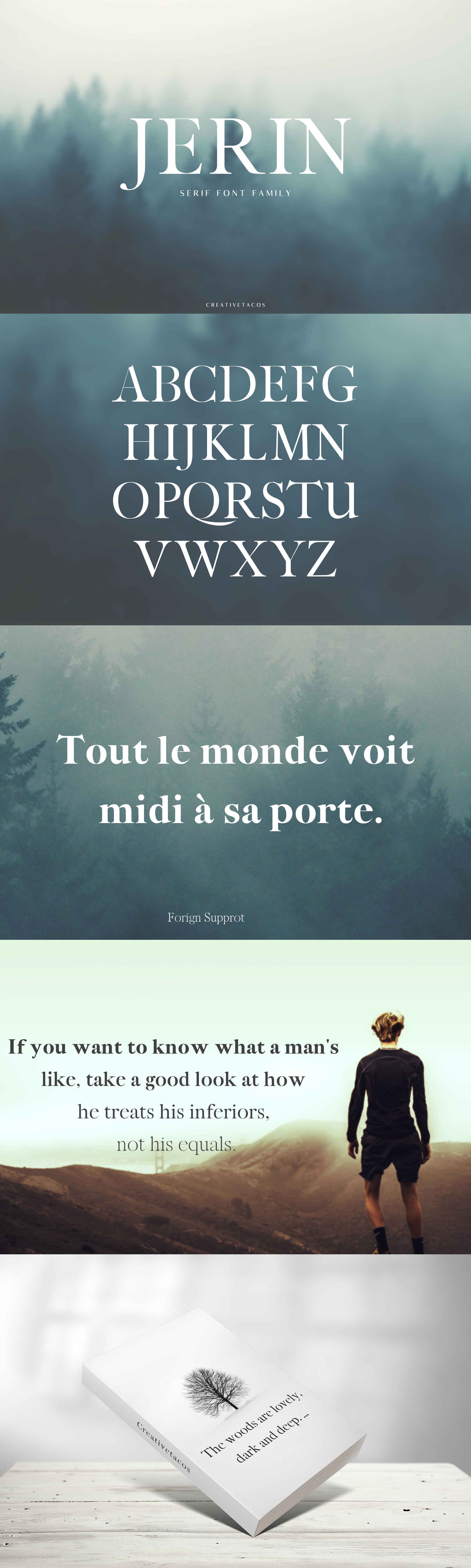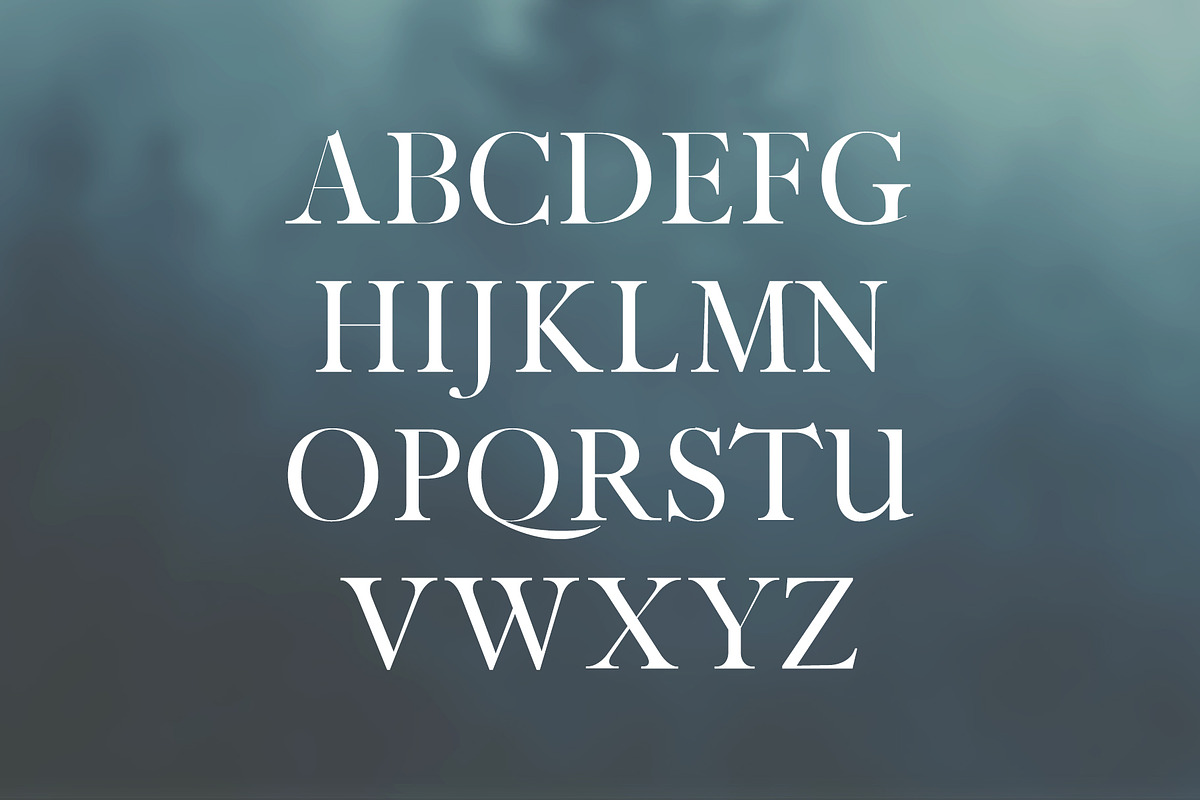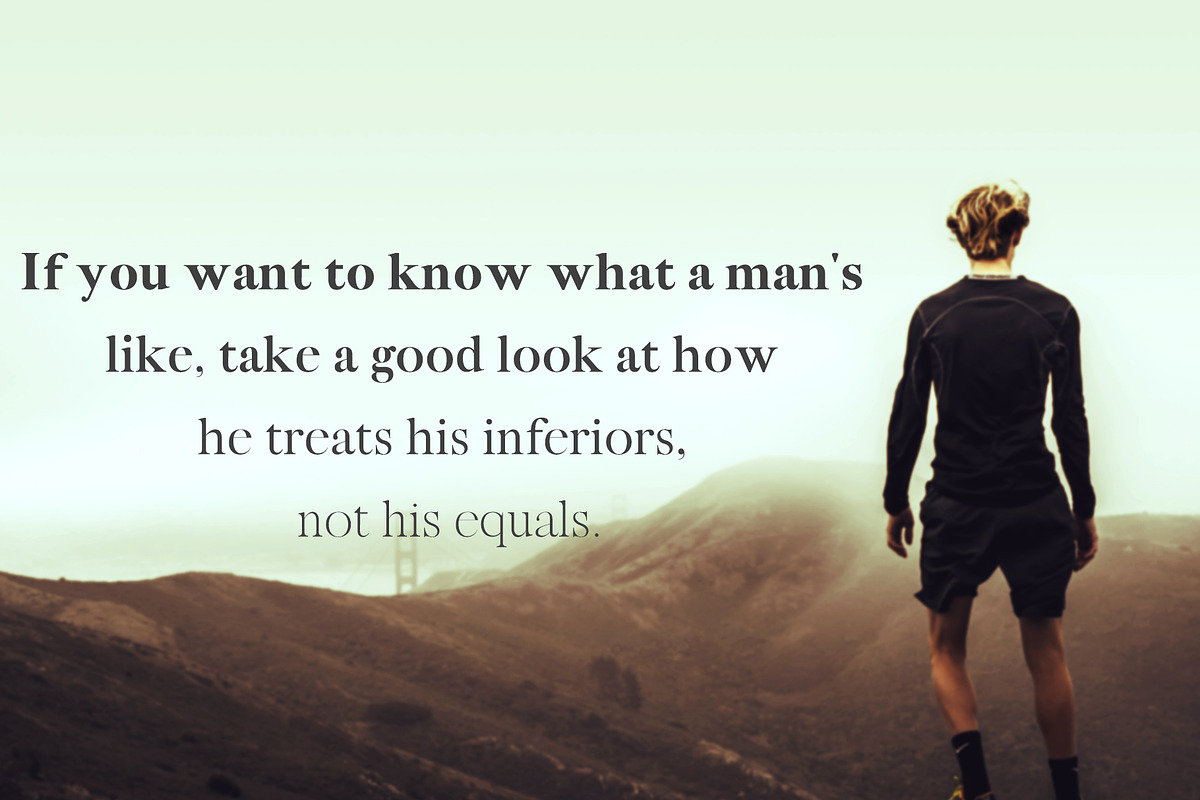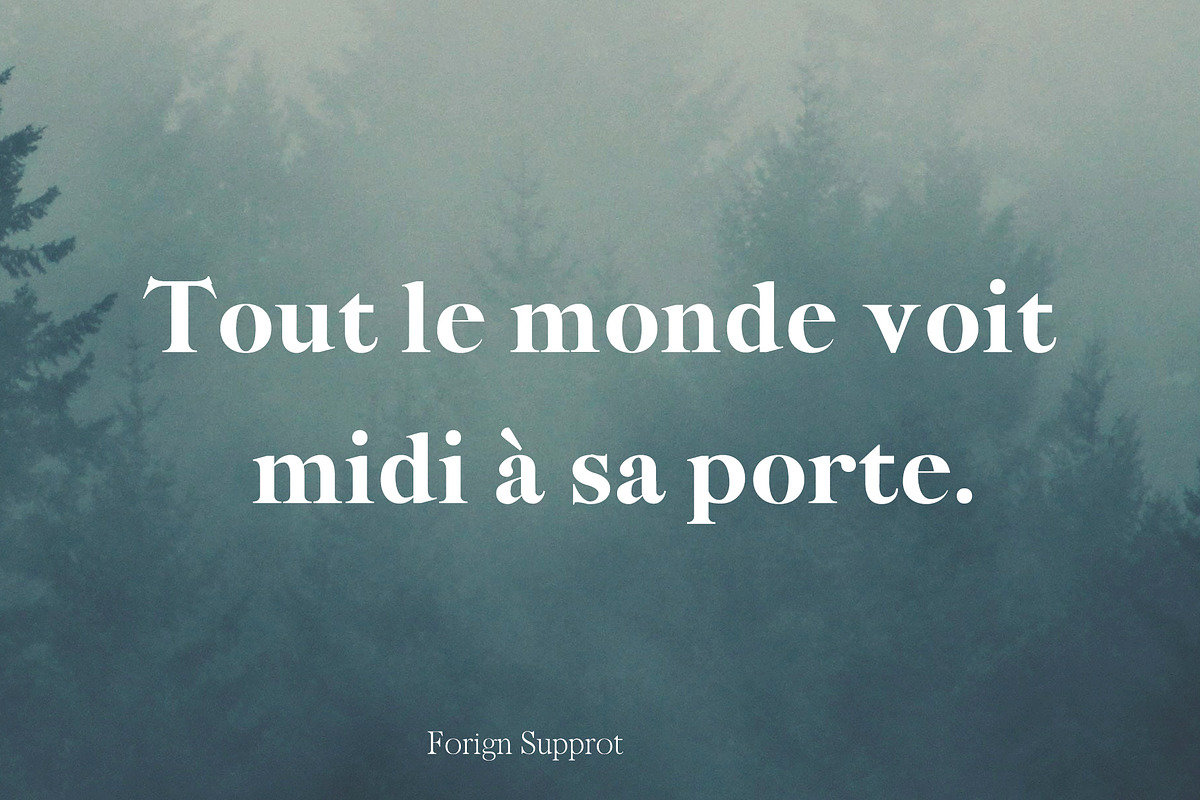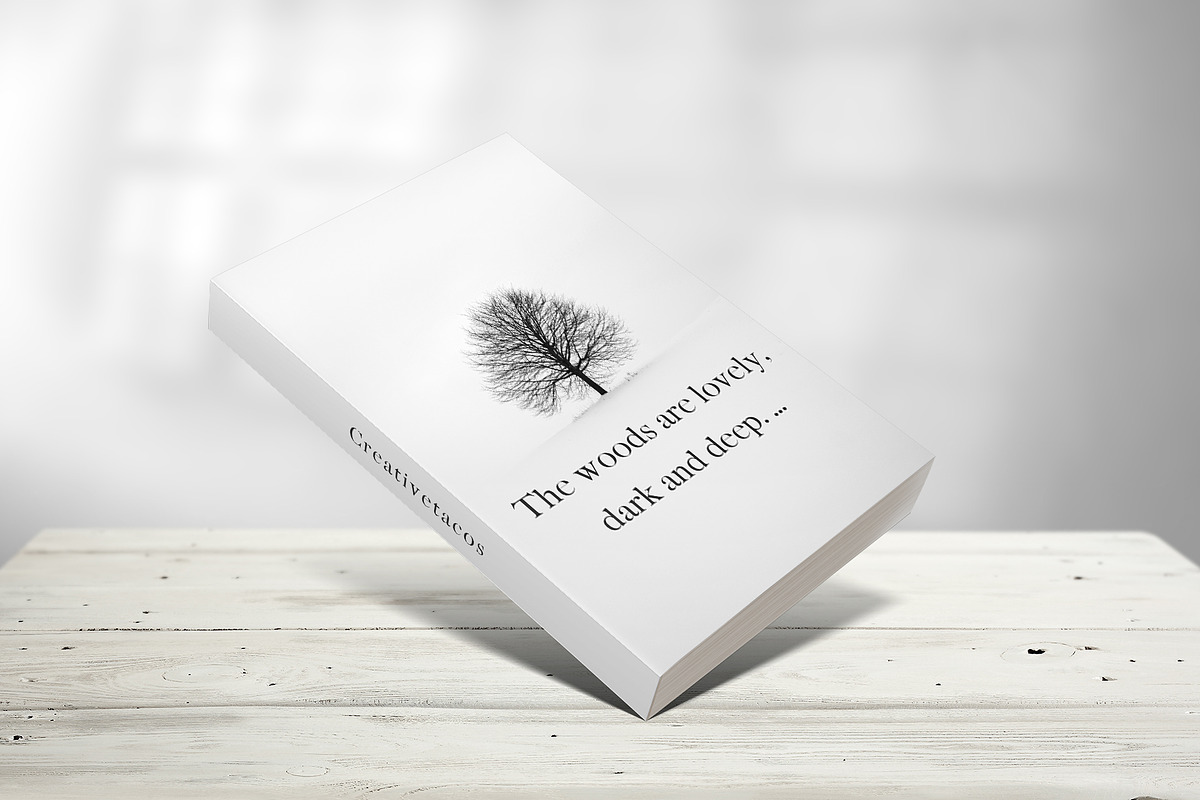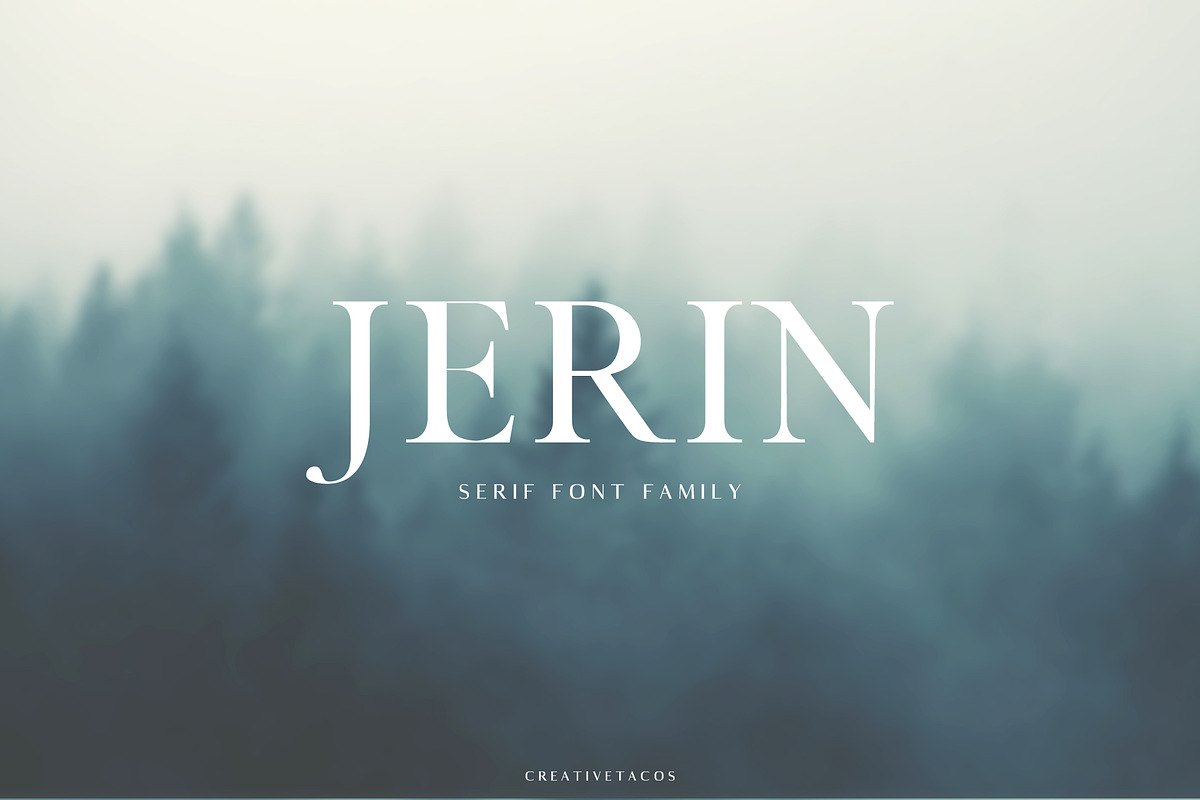
Jerin Serif Font Famiy
Jerin is a stylish and sophisticated, sleek lines serif font typeface that looks incredible in every context. It includes all basic glyphs with Non-English characters. This font will pair beautifully with the sans serif, script, display, signature or handwriting style. It is best for headlines, titles, magazines headings, logo, advertising, posters, quotes, web layouts, invitations, packaging design, books, branding, and nearly any creative design.
Included Features:
- Font Weight: Regular, Thin, Light, Round, Bold and Black
Jerin Font Features:
- Uppercase Multilingual Letters
- Lowercase Multilingual Letters
- Non English Characters ( Latin Extended A )